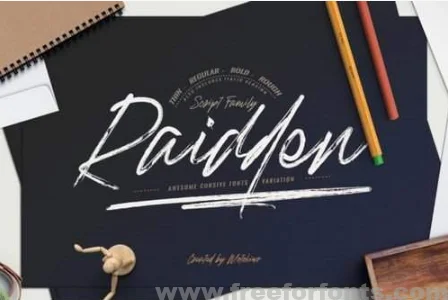
Raidden Family Font
Raidden Family Font is perfect for adventure gaming branding, medieval fantasy designs, epic quest promotions, warrior-themed merchandise, fantasy novel covers, role-playing game interfaces, legendary battle graphics, heroic clan logos, mythical adventure campaigns, and powerful fantasy marketing materials.
Raidden Family Font is exciting because it embodies the fierce spirit and legendary power of ancient warriors through bold, battle-tested letterforms that convey conquest, honor, and epic adventure with heroic magnificence. This legendarily designed typeface combines medieval warrior aesthetics with contemporary functionality, making it perfect for brands that want to communicate strength, courage, and legendary achievement that inspires audiences to embrace their inner warrior spirit.
The Raidden Family Font includes powerful weights with warrior-inspired character styling, featuring battle design elements and heroic decorative variations. The font showcases legendary design details, conquest-optimized proportions, and epic character characteristics that create a comprehensive typographic system for adventure and fantasy-focused brand applications.
The warrior sophistication of Raidden Family Font makes it an invaluable tool for gaming companies, adventure entertainment venues, and fantasy brands that need typography capable of communicating legendary strength and heroic authenticity. The font's powerful character helps establish connections with audiences seeking epic adventures, heroic challenges, and legendary experiences that celebrate courage and warrior spirit.
Gaming studios, fantasy entertainment companies, and adventure brands consistently choose Raidden Family Font for its ability to convey warrior strength and legendary sophistication through typography. The font excels in applications where establishing heroic credibility and epic appeal are essential to brand positioning, making it particularly effective for fantasy gaming, adventure entertainment, and warrior-themed brands targeting adventure-seeking consumers.
This font's comprehensive character set includes warrior-inspired letterforms, heroic numerals, battle punctuation marks, and legendary symbols that support authentic fantasy typography composition. The consistent powerful styling maintains the warrior legend theme throughout all characters while ensuring professional readability across all fantasy and adventure design projects requiring Raidden Family Font Free Download functionality.